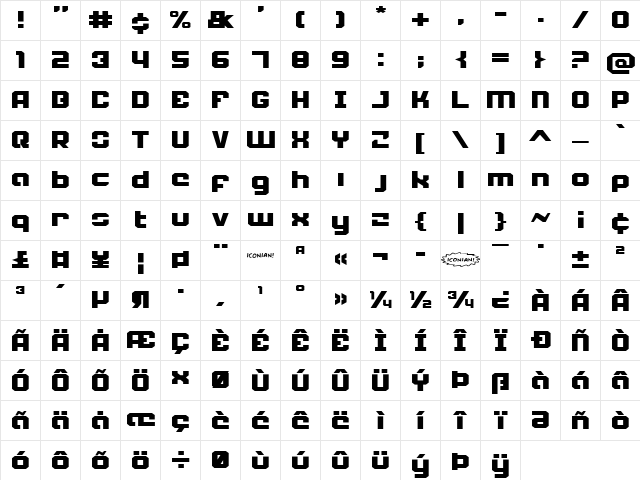
Weaponeer Expanded Expanded
Design Context for Weaponeer Expanded Typeface
Weaponeer Expanded is a composed and adaptable typeface that performs quietly and consistently across a wide range of design contexts.